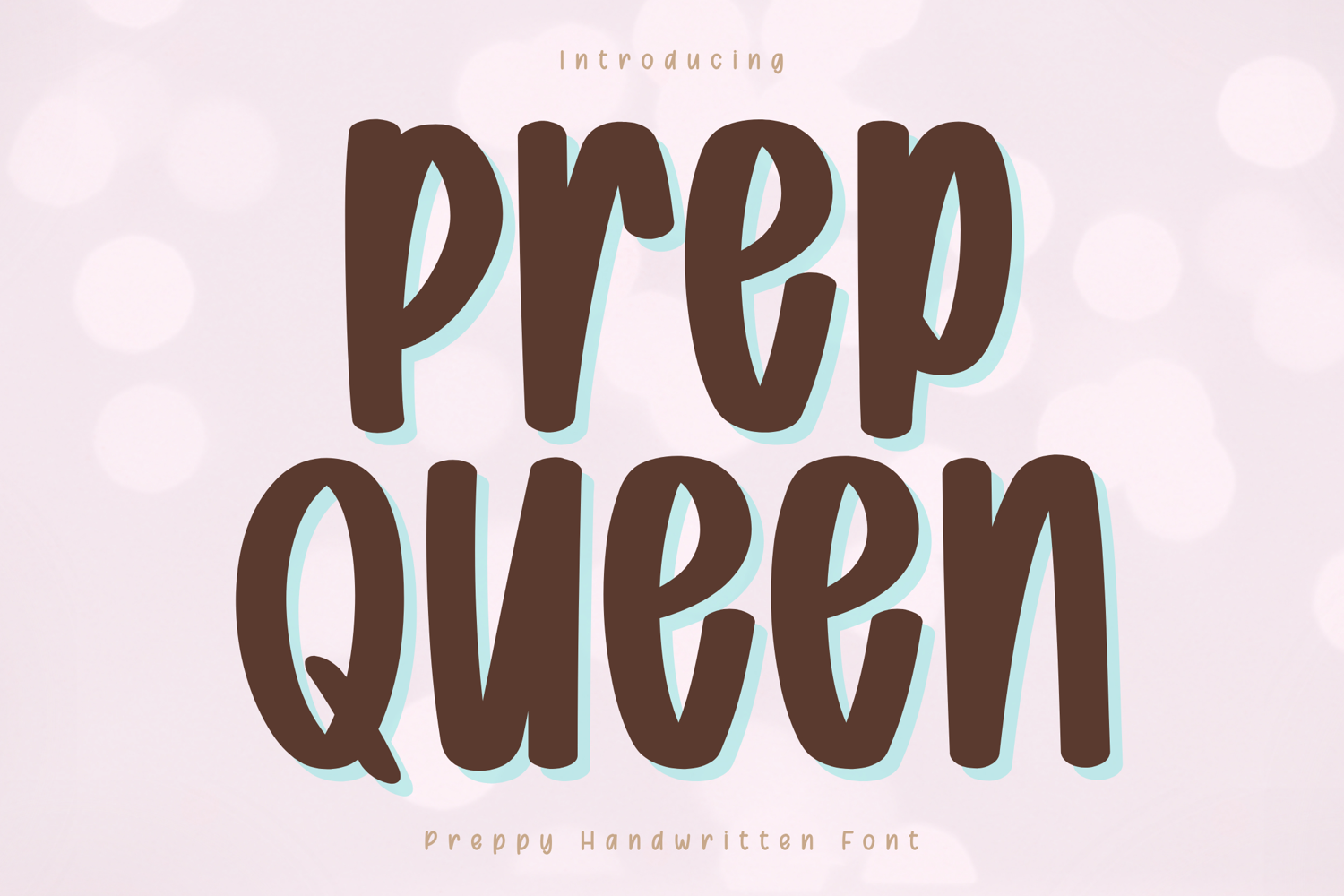
Prep Queen - Preppy Handwritten Font
Prep Queen – Preppy Handwritten Font
Prep Queen is a bold and stylish handwritten font designed to bring a clean and confident preppy vibe to your creative projects. With its smooth curves and structured letterforms, this font delivers a modern handwritten look while maintaining excellent clarity and readability.
Carefully crafted for versatility, Prep Queen works beautifully across a wide range of applications—from branding and logo design to Cricut projects, digital planners, and social media content. Its bold and consistent strokes ensure strong visual impact while remaining easy to read, making it perfect for creative projects.
Prep Queen is designed with bold, clean strokes and balanced spacing, making it easy to use for both beginners and professional designers.